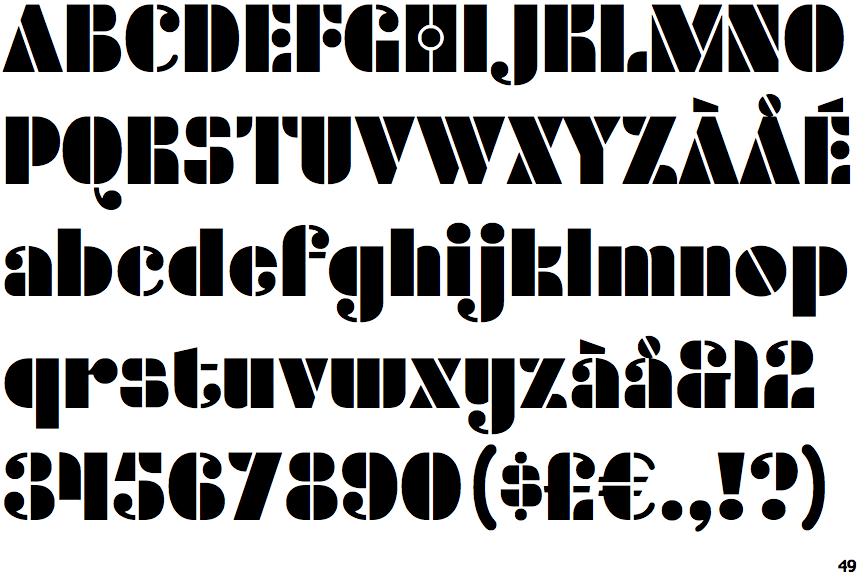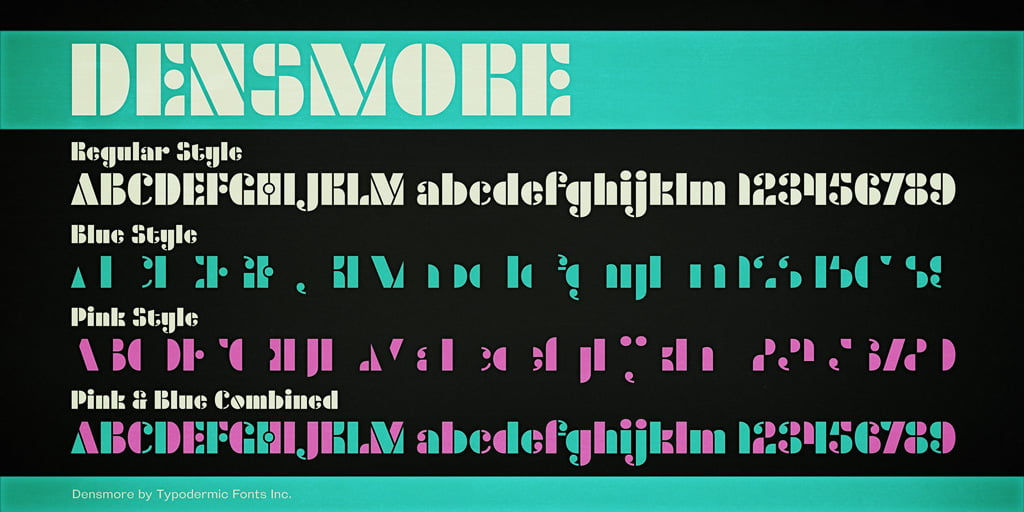
Densmore Font . A typographic tribute to the psychedelic spirit of the doors. In applications which support ligatures, a double lowercase “o” combination will. It is decorative font and has 2 styles. The densmore font has been downloaded 17,095 times. “break on through to the other side” of design with densmore, the typeface inspired by the doors. Download free densmore font by typodermic fonts. Download and install the densmore font by typodermic fonts. Densmore is a font inspired by the logo of the rock band the doors, created with circle and rectangle shapes. Densmore font is free for both.
“break on through to the other side” of design with densmore, the typeface inspired by the doors. In applications which support ligatures, a double lowercase “o” combination will. Densmore is a font inspired by the logo of the rock band the doors, created with circle and rectangle shapes. It is decorative font and has 2 styles. A typographic tribute to the psychedelic spirit of the doors. Download and install the densmore font by typodermic fonts. Densmore font is free for both. Download free densmore font by typodermic fonts. The densmore font has been downloaded 17,095 times.
Densmore Font “break on through to the other side” of design with densmore, the typeface inspired by the doors. It is decorative font and has 2 styles. Download and install the densmore font by typodermic fonts. “break on through to the other side” of design with densmore, the typeface inspired by the doors. Download free densmore font by typodermic fonts. A typographic tribute to the psychedelic spirit of the doors. Densmore is a font inspired by the logo of the rock band the doors, created with circle and rectangle shapes. In applications which support ligatures, a double lowercase “o” combination will. Densmore font is free for both. The densmore font has been downloaded 17,095 times.
Densmore font by Larabie Fonts FontRiver Densmore Font A typographic tribute to the psychedelic spirit of the doors. The densmore font has been downloaded 17,095 times. Download free densmore font by typodermic fonts. “break on through to the other side” of design with densmore, the typeface inspired by the doors. Densmore font is free for both. Densmore is a font inspired by the logo of the rock band. Densmore Font.
Download free Densmore Regular font densmore.ttf Densmore Font Download free densmore font by typodermic fonts. It is decorative font and has 2 styles. Densmore font is free for both. The densmore font has been downloaded 17,095 times. Densmore is a font inspired by the logo of the rock band the doors, created with circle and rectangle shapes. “break on through to the other side” of design with densmore,. Densmore Font.
Densmore Font · 1001 Fonts Densmore Font In applications which support ligatures, a double lowercase “o” combination will. It is decorative font and has 2 styles. The densmore font has been downloaded 17,095 times. Download free densmore font by typodermic fonts. Download and install the densmore font by typodermic fonts. Densmore font is free for both. A typographic tribute to the psychedelic spirit of the doors. Densmore. Densmore Font.
Densmore Font Download Free, Online Generator Densmore Font In applications which support ligatures, a double lowercase “o” combination will. “break on through to the other side” of design with densmore, the typeface inspired by the doors. Densmore font is free for both. Download free densmore font by typodermic fonts. Download and install the densmore font by typodermic fonts. Densmore is a font inspired by the logo of the. Densmore Font.
Download Densmore font Densmore Font Download and install the densmore font by typodermic fonts. Download free densmore font by typodermic fonts. It is decorative font and has 2 styles. Densmore is a font inspired by the logo of the rock band the doors, created with circle and rectangle shapes. “break on through to the other side” of design with densmore, the typeface inspired by the. Densmore Font.
Densmore font Typing Guru Densmore Font The densmore font has been downloaded 17,095 times. Download free densmore font by typodermic fonts. In applications which support ligatures, a double lowercase “o” combination will. A typographic tribute to the psychedelic spirit of the doors. Densmore font is free for both. Densmore is a font inspired by the logo of the rock band the doors, created with circle and. Densmore Font.
Densmore Font Download Densmore Font The densmore font has been downloaded 17,095 times. Download free densmore font by typodermic fonts. Densmore is a font inspired by the logo of the rock band the doors, created with circle and rectangle shapes. In applications which support ligatures, a double lowercase “o” combination will. Densmore font is free for both. A typographic tribute to the psychedelic spirit of. Densmore Font.
Densmore Font · 1001 Fonts Densmore Font “break on through to the other side” of design with densmore, the typeface inspired by the doors. A typographic tribute to the psychedelic spirit of the doors. Download free densmore font by typodermic fonts. Download and install the densmore font by typodermic fonts. The densmore font has been downloaded 17,095 times. Densmore font is free for both. In applications which. Densmore Font.
Densmore Font Download Free for Desktop & font Densmore Font In applications which support ligatures, a double lowercase “o” combination will. Densmore is a font inspired by the logo of the rock band the doors, created with circle and rectangle shapes. The densmore font has been downloaded 17,095 times. “break on through to the other side” of design with densmore, the typeface inspired by the doors. Download and install the. Densmore Font.